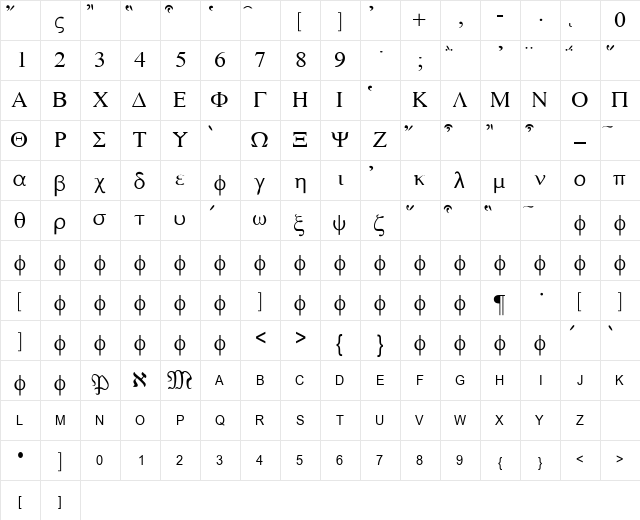
Greek Parse Regular
Design Context for Greek Parse Typeface
Greek Parse offers clean, dependable letterforms without strong stylistic allegiance, making it a practical choice for designers who need flexibility.